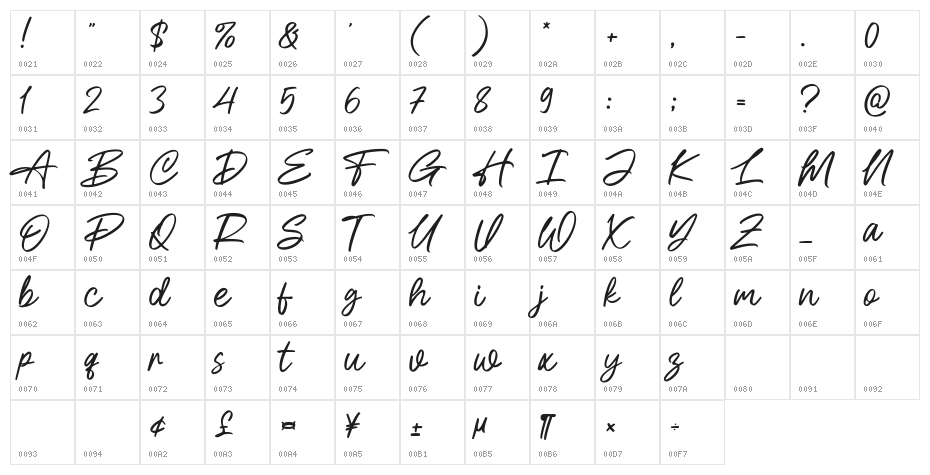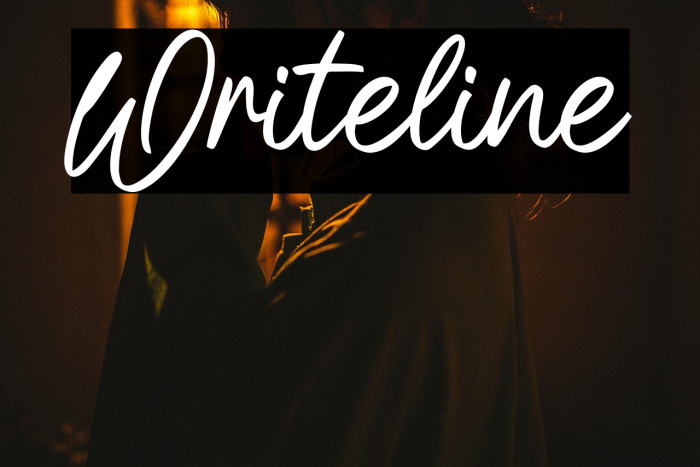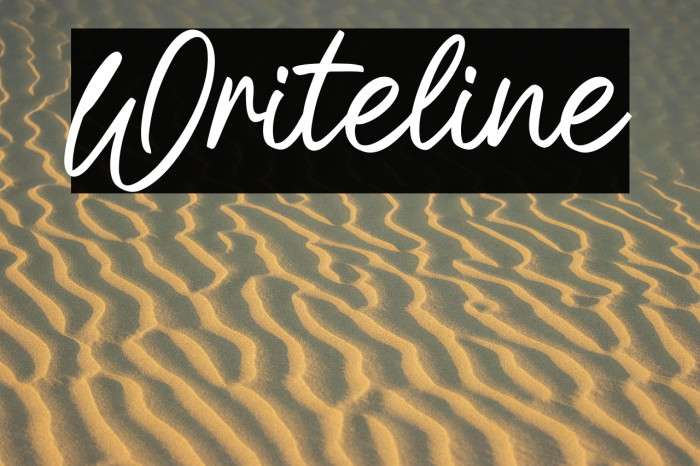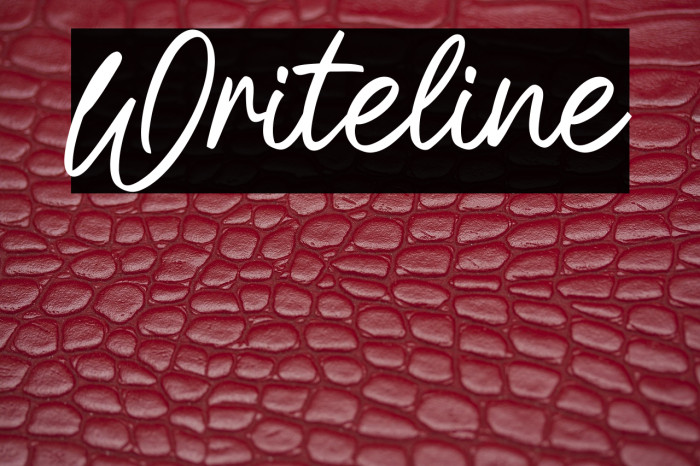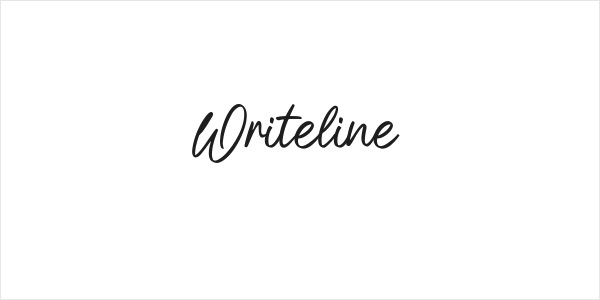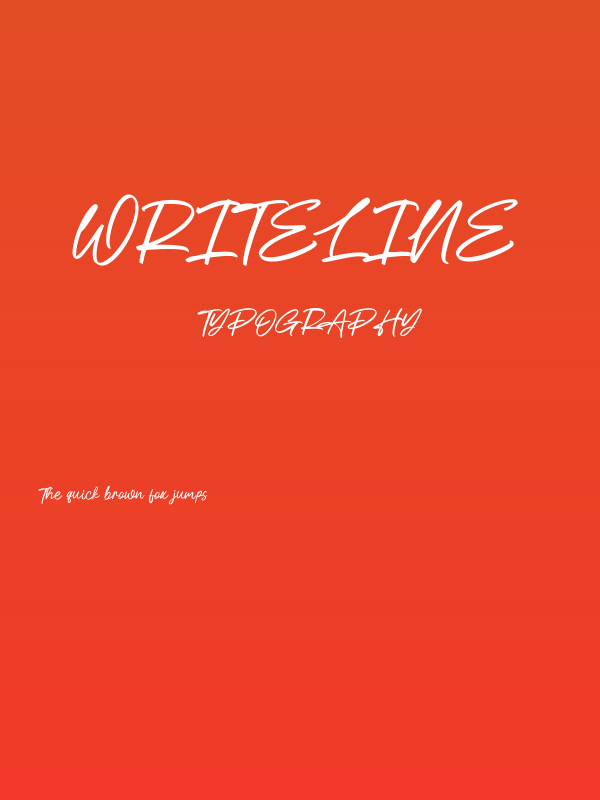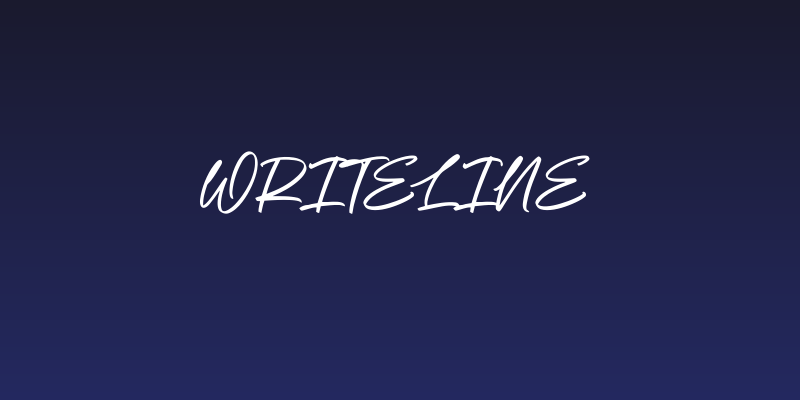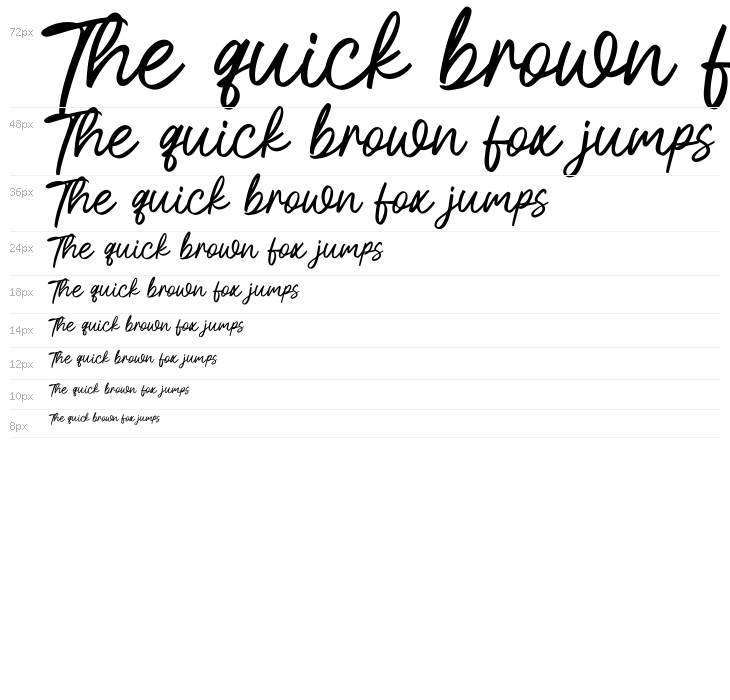
Writeline Font
Writeline Description
This font exudes a lively and dynamic energy with its fluid, cursive style. The characters are interconnected, creating a sense of continuous motion. The uppercase letters are bold and slightly slanted, while the lowercase letters maintain a consistent flow with elegant loops and curves. The numerals are distinct yet harmonize well with the overall script style. Special characters are creatively integrated, maintaining the font's cohesive appearance. This font is perfect for projects that require a personal, handwritten touch, offering both readability and aesthetic appeal.
| Proposed Projects | Ideal for wedding invitations, greeting cards, personal branding, and creative posters. |